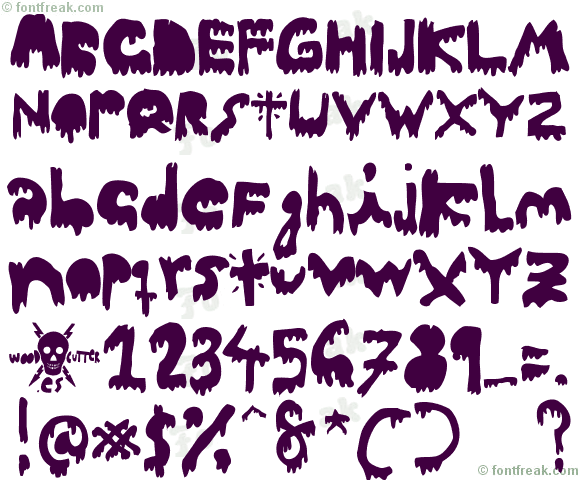
Woodcutter Dripping Nightmare v.01
Woodcutter Dripping Nightmare v.01 is a distinctive display typeface created by woodcutter Manero, designed to evoke a sense of eerie whimsy and dark creativity. This font falls into the decorative category, characterized by its unique dripping effect that resembles paint or liquid, giving it a haunting yet playful appearance. The strokes are irregular, featuring varying weights that contribute to a sense of dynamism and movement. The spacing is intentionally uneven, adding to its artistic charm and making it stand out in any design.
This font is particularly suited for creative projects that demand attention and intrigue. It shines in use cases such as Halloween-themed event posters, edgy restaurant menus, and alternative music album covers. Additionally, the Woodcutter Dripping Nightmare v.01 font can elevate graphic designs for merchandise like T-shirts and stickers, making it a fantastic choice for small business owners looking to capture a unique brand identity. Graphic designers and content creators will find this font ideal for projects that aim to provoke thought or evoke a sense of curiosity.
The target audience for this typeface includes graphic designers, small business owners, and content creators who appreciate a bold and unconventional aesthetic. This font allows for creative expression while maintaining readability, making it a versatile tool for various design needs.
What sets the Woodcutter Dripping Nightmare v.01 font apart is its striking visual style that blends playful elements with a touch of darkness. This unique combination makes it not only visually appealing but also memorable. For those interested in making a statement with their typography, the Woodcutter Dripping Nightmare v.01 font free download provides an excellent opportunity to incorporate this captivating design into their work.